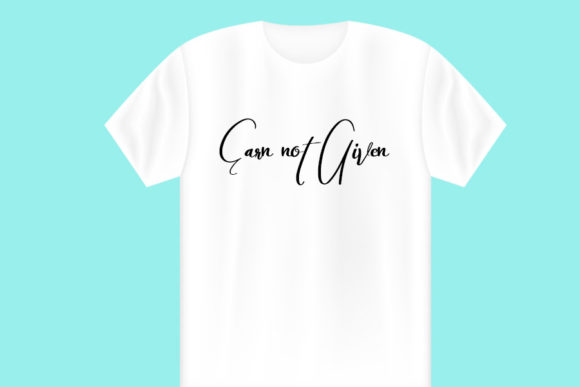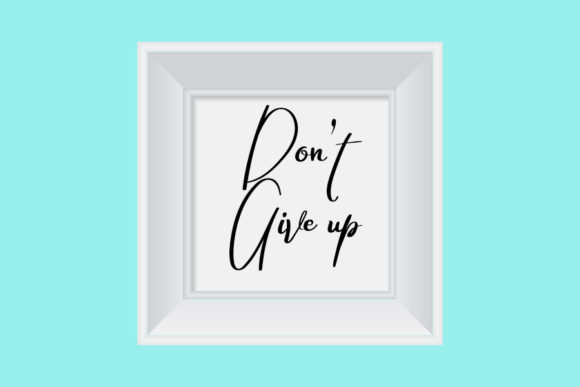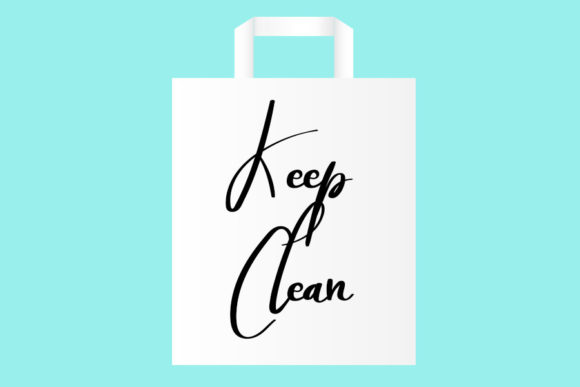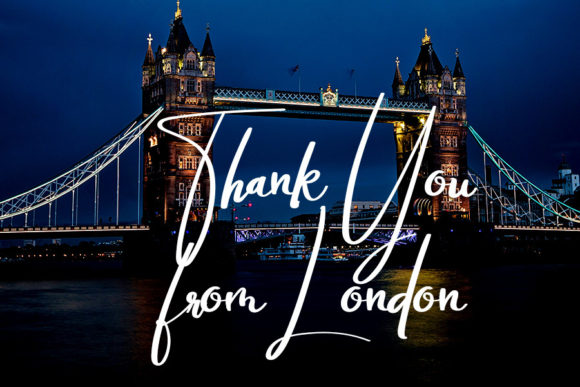
Introduction to England Sunset Font
Enter the England Sunset Font, a delightful and charming handwritten font that’s sure to capture the essence of your creative project. With its natural, unique style, this font is an excellent choice for designers who crave a high-quality, one-of-a-kind design resource. Whether you’re working on a personal or professional project, the England Sunset Font is a valuable addition to your toolkit.
Key Features of England Sunset Font
- High-quality, hand-drawn design perfect for creative projects and designs that require a touch of elegance.
- Features a unique, hand-crafted aesthetic that evokes the warmth and beauty of an English sunset.
Honest Review: England Sunset Font
I recently had the chance to work with the England Sunset Font for a creative project, and I must say it’s been a great addition to my design resources. The font is available for free download, which is always a plus when working on a budget. The quality of the font is top-notch, with crisp, clear letters that are perfect for use in a variety of contexts.
One of the things that stands out about this font is its versatility. It’s great for use in creative projects, from logos to web design, and even as a design element in its own right. The transparent background makes it easy to layer over other elements, adding a touch of elegance to any design. ✨
Here are some of the features that make the England Sunset Font a valuable design resource:
- High-quality font with crisp, clear letters
- Perfect for creative projects, from logos to web design
⚠️ One potential limitation of the font is its limited character set. While it’s great for basic text, it may not be suitable for more complex typography or text-heavy designs.
Overall, I’m impressed with the England Sunset Font. It’s a high-quality, versatile design resource that’s perfect for any creative project. Whether you’re a seasoned designer or just starting out, this font is definitely worth checking out.
Tips for Getting the Most Out of the England Sunset Font
For a creative project, use the England Sunset Font in combination with a transparent background to create a stunning visual effect. Experiment with different font sizes and styles to add depth and interest to your design.
The England Sunset Font is perfect for designing promotional materials, such as posters and flyers, as well as for creating engaging social media graphics. Its high-quality design makes it ideal for use in a variety of creative projects.